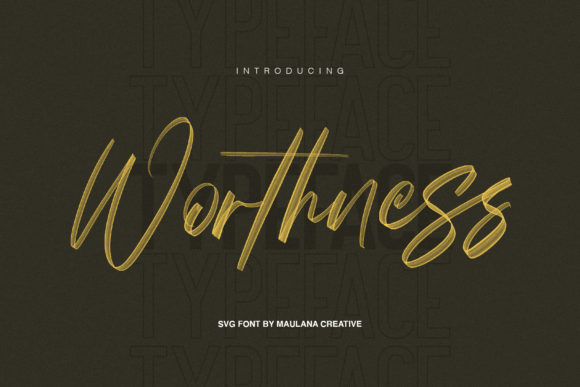
Step into a realm of exquisite artistry with Worthness Script, a font family brimming with the spirit of elegance and creativity. Let your designs embrace the essence of heartfelt charm and authenticity as you explore the endless possibilities of this script.
Crafted with utmost care by Maulana Creative, Worthness Script is more than just a collection of letters; it's an invitation to immerse yourself in a world of wonder. Its modern elegance dances across your designs, leaving a trail of grace and fascination in its wake.
Whether you're a seasoned designer, a creative enthusiast, or simply someone who cherishes the beauty of typography, Worthness Script holds the key to unlock your creative aspirations. Its script nature adds a touch of endearment to any project, ensuring that your words leap off the page with a distinct personality.
Feel the warmth of Worthness Script envelope your designs, resonating with a sense of authenticity and charm. Its flowing lines mimic the delicate strokes of a calligraphic pen, infusing your work with a touch of heartfelt artistry.
Discover the true essence of beauty and expression as Worthness Script dances across your designs, leaving a lasting impression that speaks volumes. Allow your creativity to embark on a journey of self-discovery, where every letter, every word, every phrase becomes a testament to your unique style.
Immerse yourself in the world of Worthness Script, a font family that whispers elegance, radiates authenticity, and ignites the fire of creativity. Its curves and flourishes hold the secrets to turning your designs into works of heartfelt art.
With Worthness Script, you're not merely downloading a font; you're embarking on an artistic adventure where your ideas and imagination take center stage. Its script nature invites you to explore the boundaries of your creativity, to craft designs that resonate with a touch of magic.